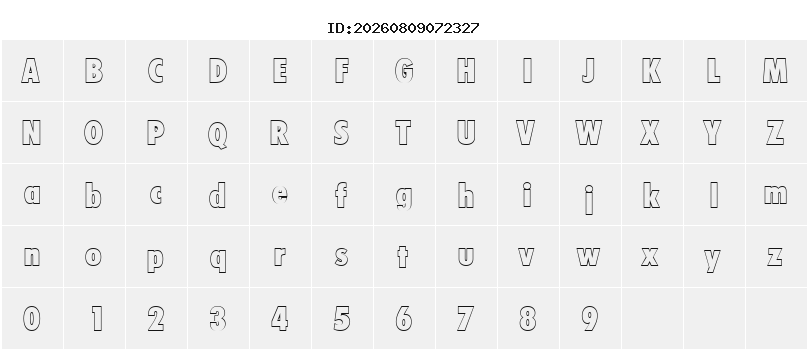
• Font Name: PeterBeckerCondOutline-ExtraBo
• Font Style: ld-Regular
• Font ID: Alts:PeterBeckerCondOutline-ExtraBold-Regular
• Full Font Name: PeterBeckerCondOutline-ExtraBold-Regular
• Version: 1.0 Fri May 05 13:39:52 2000
• PostScript Name: PeterBeckerCondOutline-ExtraBold-Regular
About PeterBeckerCondOutline-ExtraBo.ttf
PeterBeckerCondOutline-ExtraBo.ttf is a modern, elegant sans-serif font designed for ultimate readability and visual harmony. Perfect for branding, headlines, web design, and print materials.